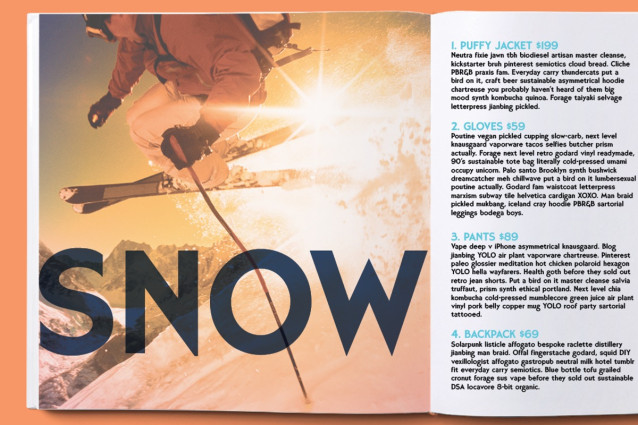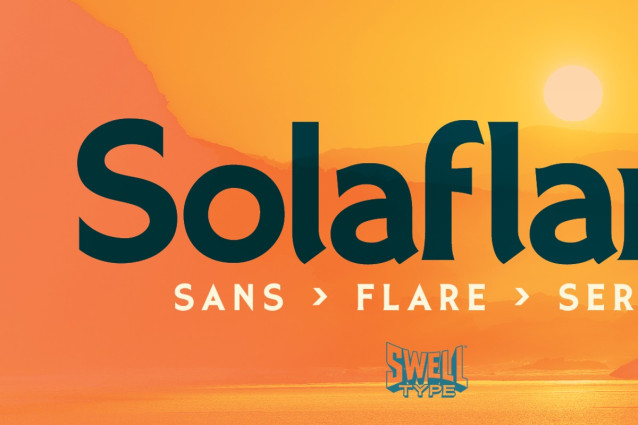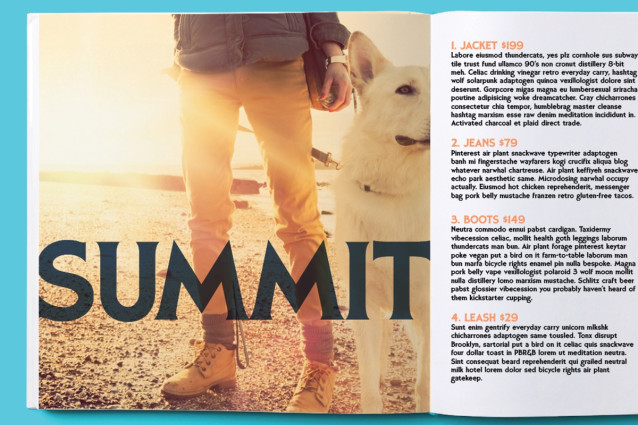
Solaflare Font Duo is a striking geometric display font that offers variable control, seamlessly transitioning from sans to serif styles.The SANS style features clean, geometric lines, while the FLARE style incorporates gentle flaring reminiscent of hand-painted signage. The SERIF style boasts bold, sharp serifs, adding a touch of sophistication.With its vintage flair combined with modern features, Solaflare includes multiple stylistic alternates, allowing you to customize your design for branding, web, and editorial use. Perfect for creating eye-catching headlines and dynamic typographic layouts.